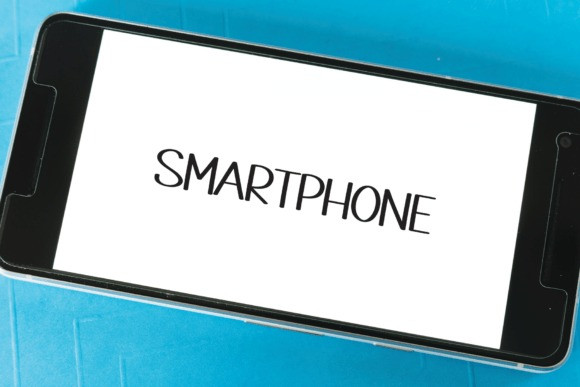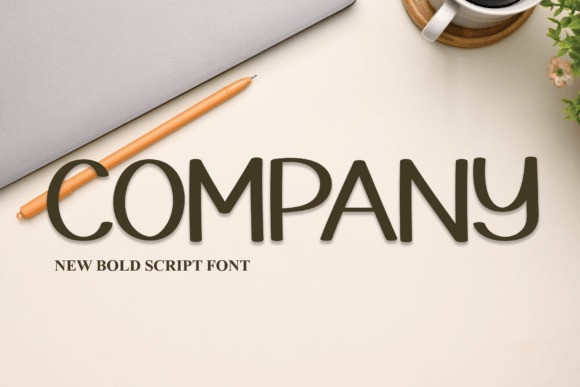
Company Display Font
Company Display Font, stylish letters perfect for wall displays, wedding invitations, social media post logos, advertising, product packaging, product design, branding, photos, watermarks, invitations, stationery and any project that requires unique typography.